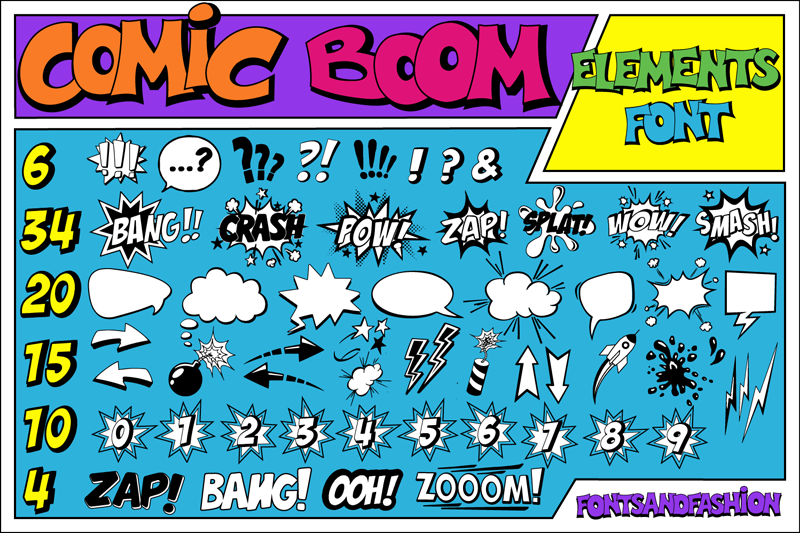
�COMIC BOOM ELEMENTS� is an elements font inspired me by comic book and pop art. This is just a DEMO version, but you could download the FULL version following this link: https://fontbundles.net/httpswwwfontsandfashioncom/519207-comic-boom-elements �COMIC BOOM ELEMENTS� in the full version is a very useful and versatile collection composed by 89 comic and funny supers heros subjects: � 20 Speech Balloon � 6 Punctuation Symbols � 15 Comic Elements � 10 Bubble Numbers � 34 Comic Boom � 4 Comic Speech Follow us on: facebook: https://www.facebook.com/fontsandfashion Pinterest: https://www.pinterest.com/fontsandfashion Instagram: https://www.instagram.com/fontsandfashion |